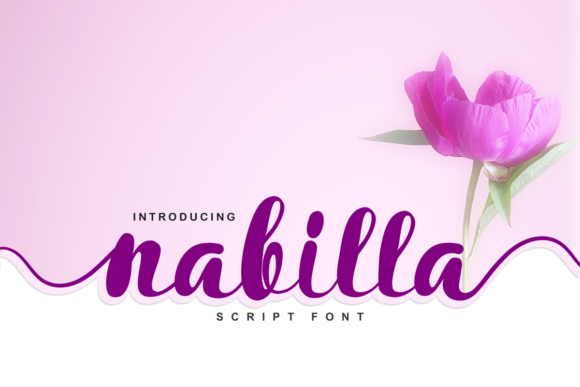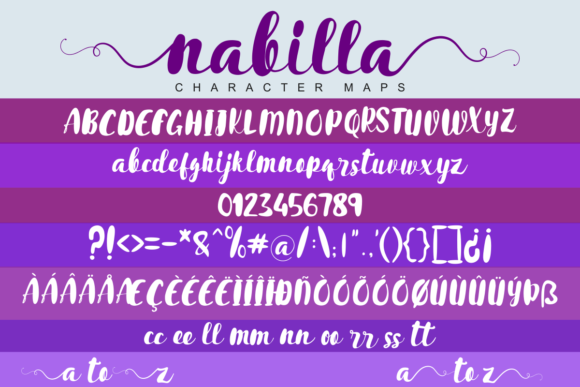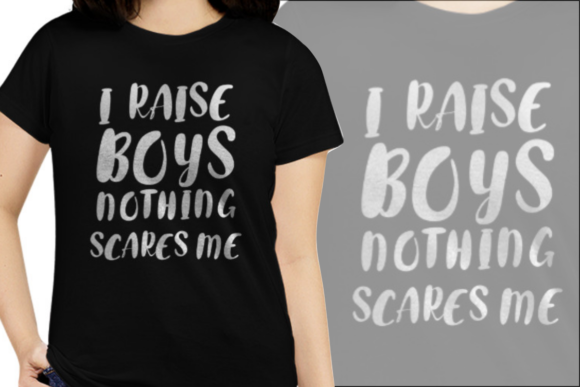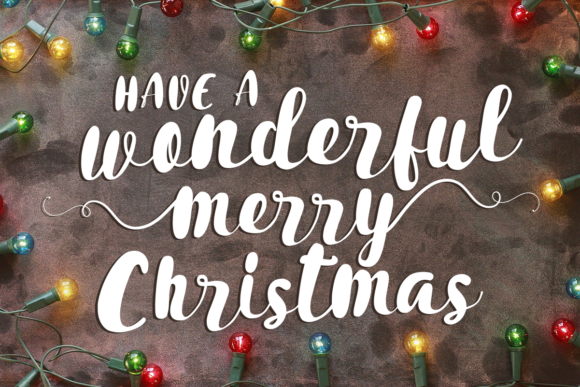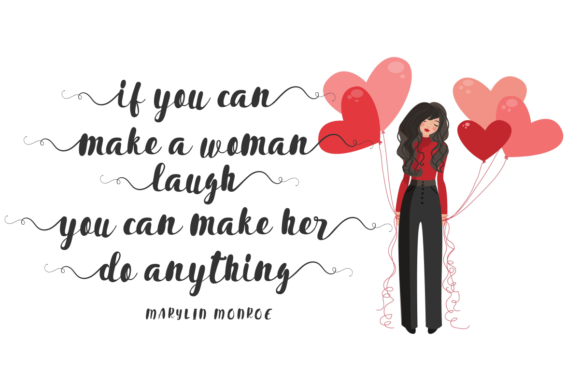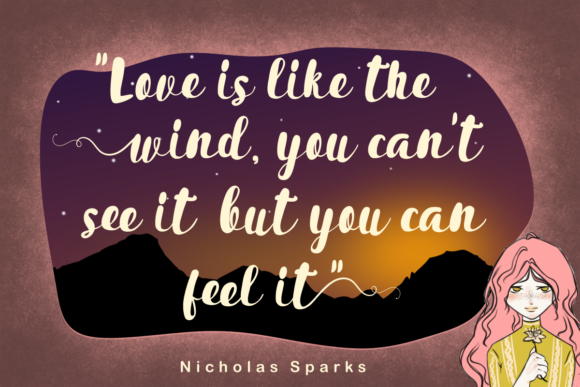
Nabilla Font
About Nabilla Font
Nabilla sounds like an exquisite handwritten font, masterfully designed to become a true favorite. Its delicate and elegant style, along with the well-balanced characters, makes it a versatile choice that can elevate a wide range of designs. Here are some creative ideas on how to use Nabilla and experience the magic it brings to your projects:
1. Wedding Invitations: Design stunning and sophisticated wedding invitations with Nabilla, showcasing its flowing and elegant lettering for a touch of romance and beauty.
2. Thank You Cards: Create heartfelt thank you cards using Nabilla’s delicate and well-balanced characters, expressing gratitude with a touch of elegance.
3. Quotes and Inspirational Prints: Utilize Nabilla to craft beautiful and meaningful quote prints, adding a touch of sophistication to inspirational messages.
4. Greeting Cards: Design charming and elegant greeting cards for various occasions, such as birthdays, anniversaries, and celebrations.
5. Logo Design: Apply Nabilla’s flowing and timeless lettering to create unique and eye-catching logos for businesses, blogs, or personal branding.
6. Branding Materials: Use Nabilla as a primary font in brand materials, including packaging, business cards, and marketing collateral, to exude elegance and sophistication.
7. Social Media Graphics: Craft eye-catching social media graphics with Nabilla, adding a touch of elegance to your brand’s online presence.
8. Art Prints: Create printable art pieces with Nabilla’s delicate and flowing lettering, suitable for framing and decoration.
9. Book Covers: Design captivating book covers with Nabilla’s elegant style, setting the tone for the content inside.
10. Menu Cards: Apply Nabilla to design refined and elegant menu cards for restaurants or special events.
11. Blog Headers: Use Nabilla in blog headers to add a touch of sophistication and create a memorable first impression.
12. Personal Stationery: Design personalized stationery, including letterheads and notecards, using Nabilla’s elegant and well-balanced characters.
13. Certificate Design: Apply Nabilla to design certificates and diplomas, making them special and memorable keepsakes.
14. Packaging Design: Use Nabilla to create beautiful and elegant packaging for luxury products, enhancing their presentation.
15. Event Invitations: Design elegant and sophisticated event invitations, such as galas, fundraisers, or exclusive gatherings, using Nabilla’s flowing script.
16. Product Labels: Apply Nabilla to design refined and attractive product labels, adding a touch of elegance to the packaging.
17. Website Typography: Use Nabilla as the main typography on your website to create an upscale and refined aesthetic.
18. Calendars: Design stylish and sophisticated calendars with Nabilla’s delicate and flowing lettering.
19. Journals and Planners: Apply Nabilla to create elegant and sophisticated covers for journals and planners.
20. Handmade Crafts: Use Nabilla in branding and packaging for handmade crafts, giving them a touch of elegance and professionalism.
In conclusion, Nabilla is a delicate, elegant, and flowing handwritten font that brings a touch of sophistication and timeless beauty to your creative projects. Its versatility and well-balanced characters make it suitable for a wide range of designs, from wedding invitations to branding and social media graphics. With Nabilla, your ideas will come alive with elegance and grace, leaving a lasting impression on those who encounter your designs. Embrace the magic of Nabilla and elevate your projects to new levels of beauty and refinement.